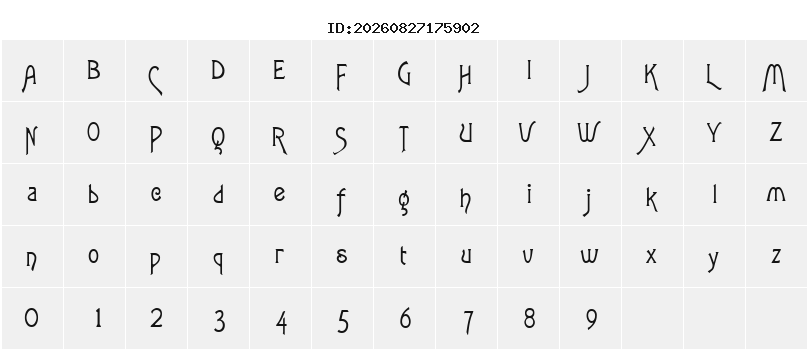
• Font Name: tsp sd 1
tsp sd 1.ttf is a modern, elegant sans-serif font designed for ultimate readability and visual harmony. Perfect for branding, headlines, web design, and print materials.